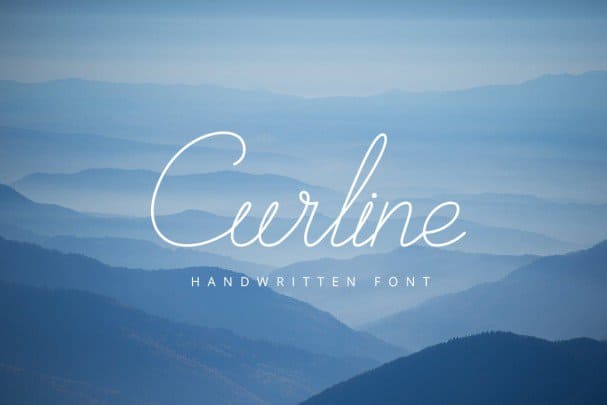
Curline Handwritten Script Font
Style of Curline Handwritten Script Font Free
This candy cane capability 20 stylish styles and every fashion expresses about the creativity of its designers going for walks on it. Because of the popularity of this typeface, it’s far now lots smooth for absolutely everyone to are expecting the decision of the font in no time.
Many designers are although the usage of this for his or her numerous designing functions. This unfastened font’s family consists of a completely unique way of the show and now not using the proper baseline.